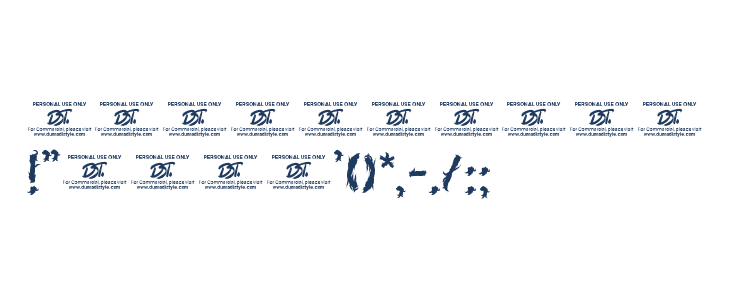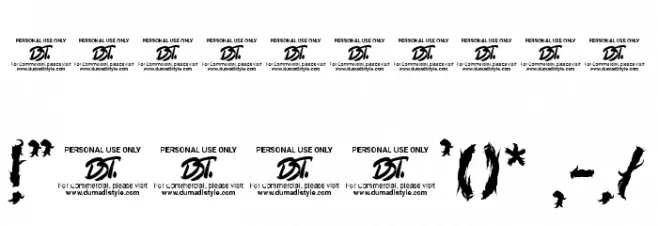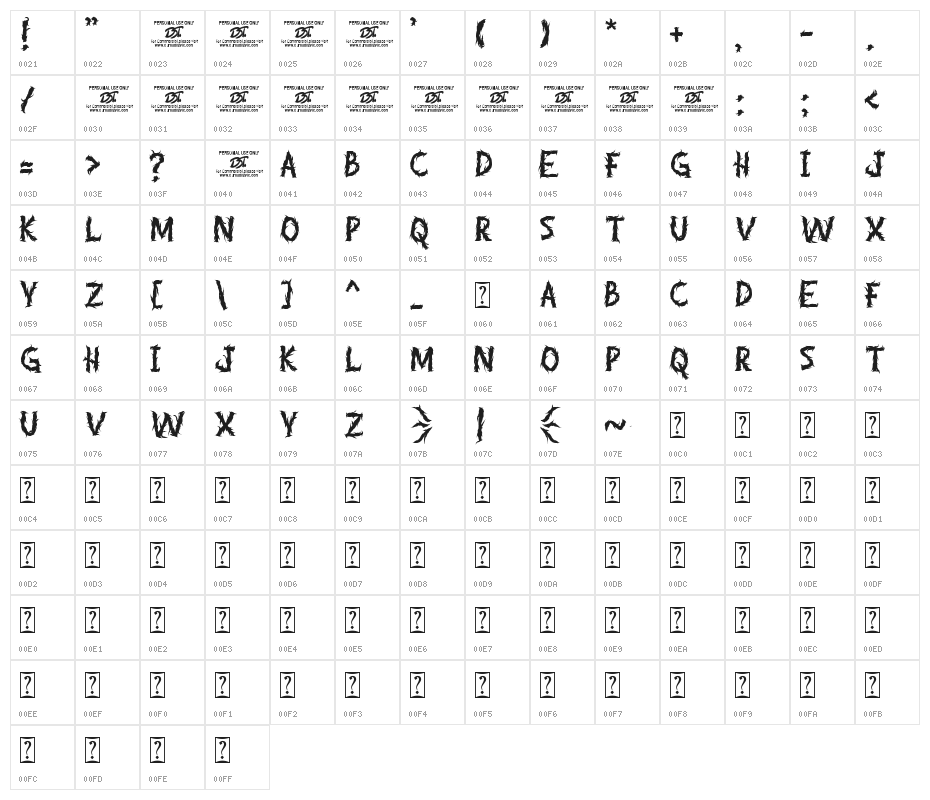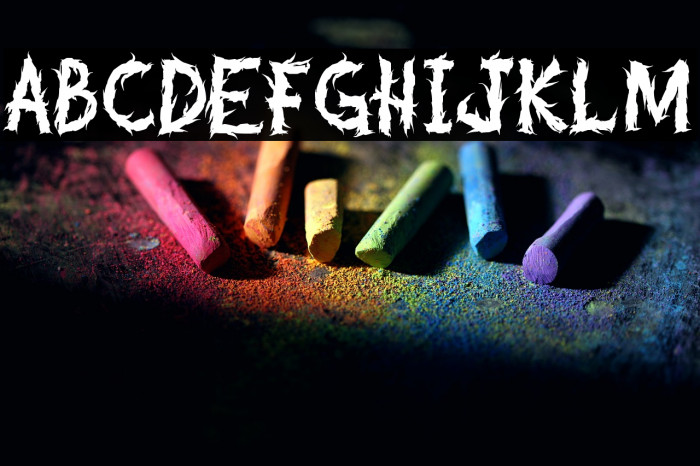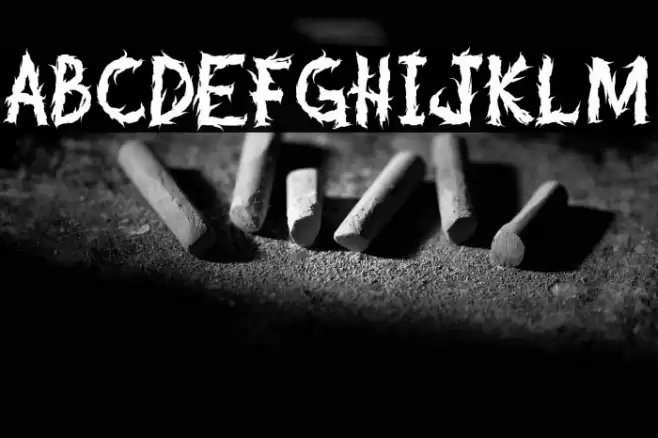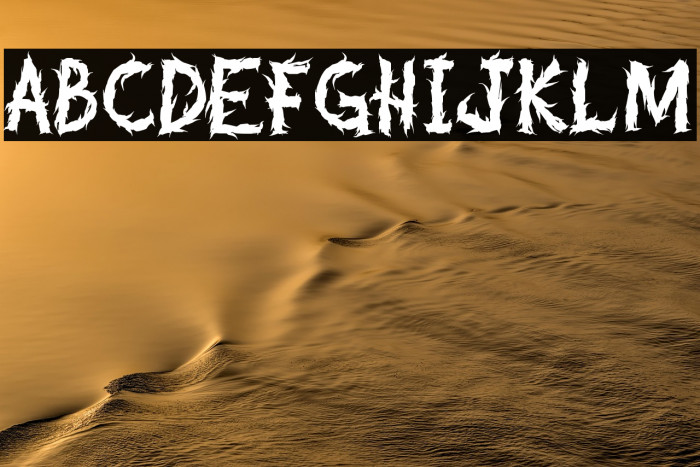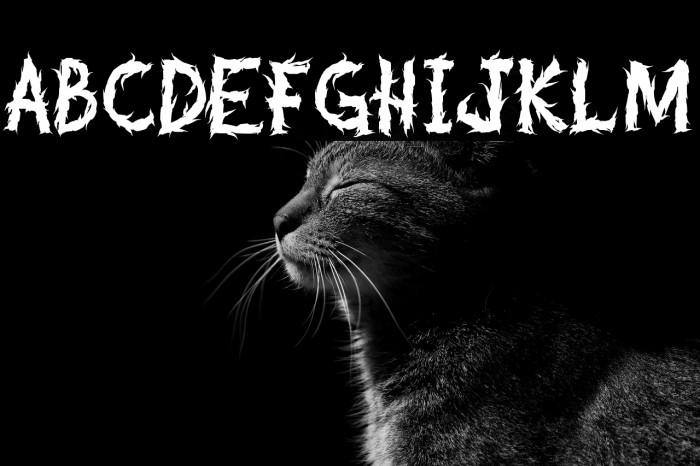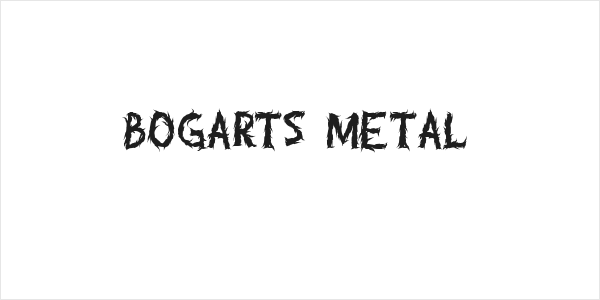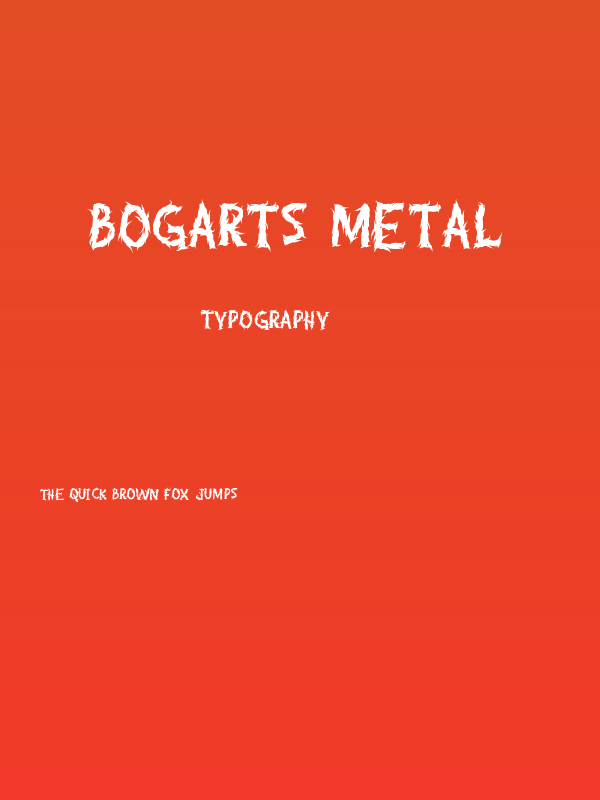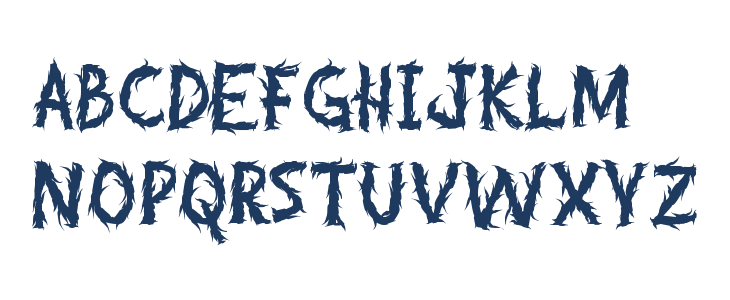
Bogarts Metal Font
Bogarts Metal Description
This font features a bold and edgy design with jagged, thorn-like edges that give it a distinctly aggressive and rebellious appearance. The characters are sharply defined with high contrast between thick and thin strokes, creating a dramatic and eye-catching effect. The uppercase and lowercase letters maintain a consistent style, emphasizing the font's unique and striking aesthetic. The numbers and special characters are equally bold, ensuring a cohesive look across all text elements. This font is ideal for projects that require a strong visual impact and a sense of intensity.
| Proposed Projects | Perfect for music album covers, event posters, branding for extreme sports, or any project needing a rebellious and intense visual style. |